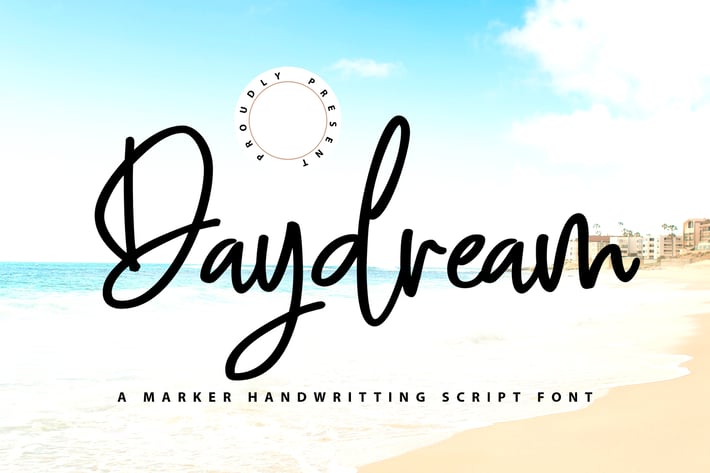
Daydreams | Marker Handwriting Script Font
Daydreams | Marker Handwriting Script Font with a calligraphy style, So beautiful on invitation like greeting cards, branding materials, business cards, quotes, posters, and more!